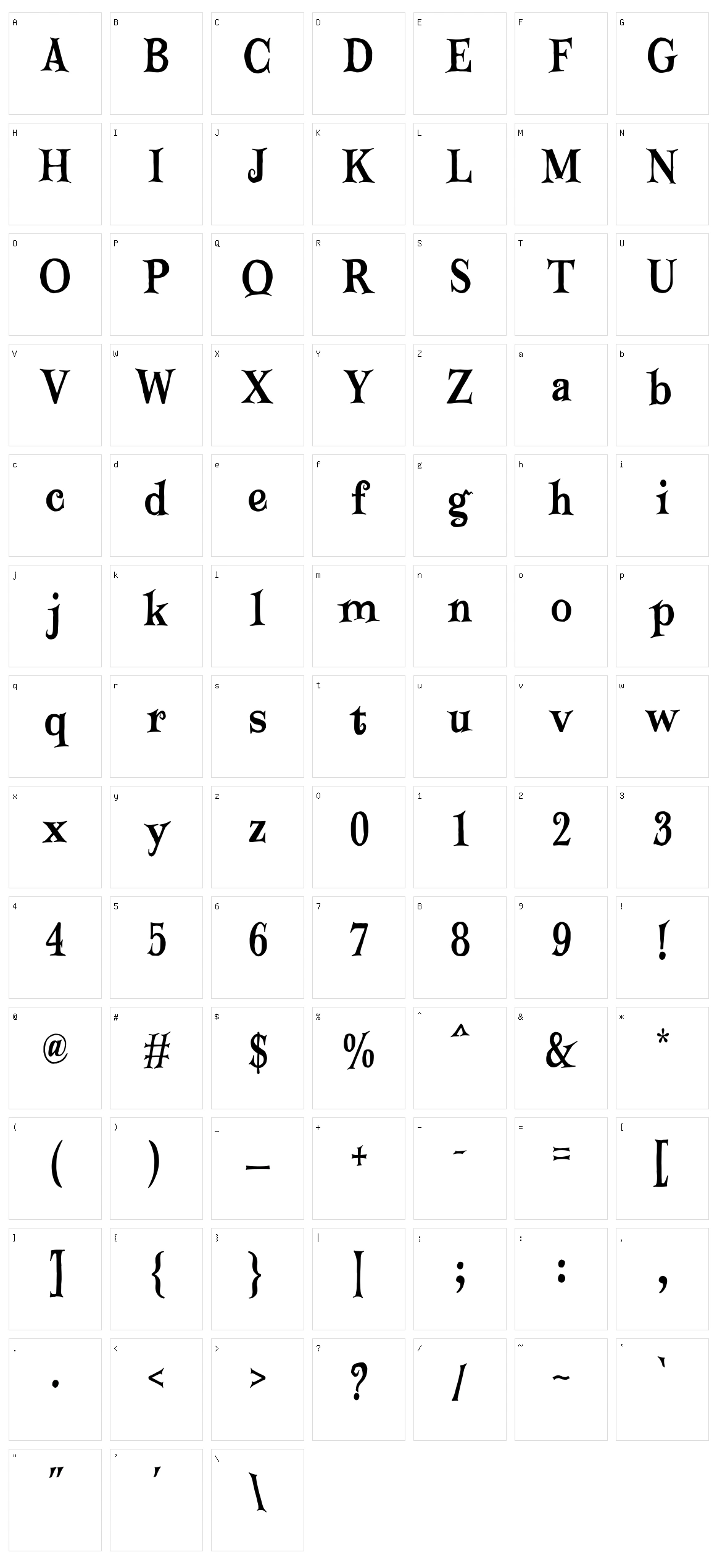
The free font Happy Halloween is carefully designed by Graphix Line Studio, showcasing a thoughtful balance of creativity and usability and falls under the Halloween font style. When you download the ZIP file, it contains only 388.91 KB of font files, making it lightweight and quick to download. Please review the license details below to understand permitted usage and distribution rights. If license information is not available, we recommend using this font for personal projects only or contacting the author directly for commercial usage permissions.